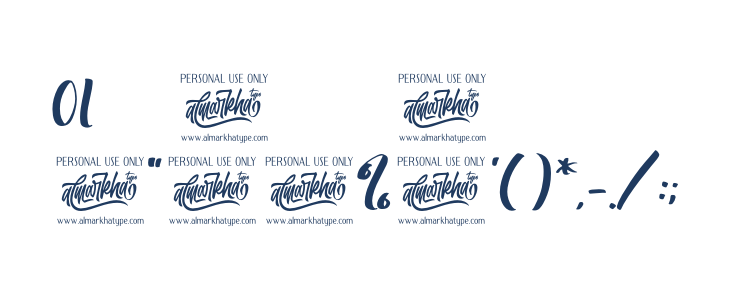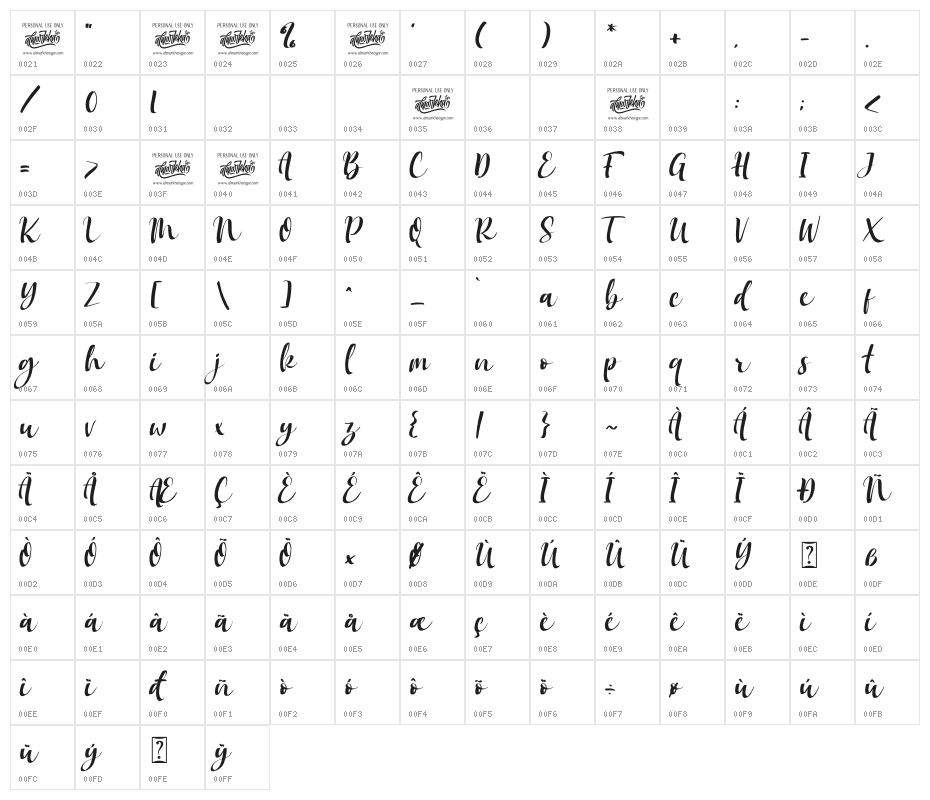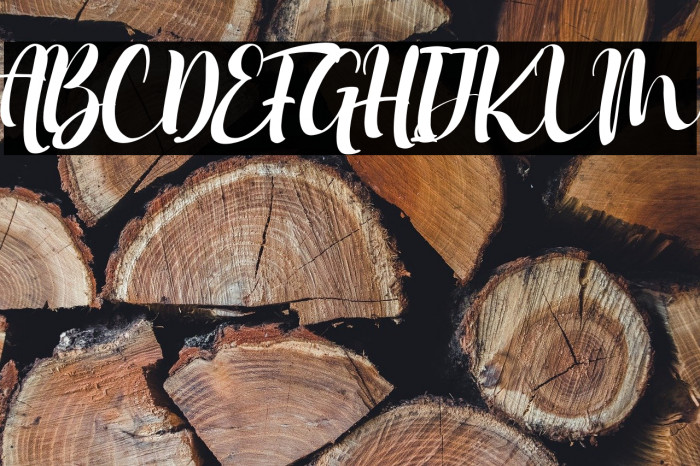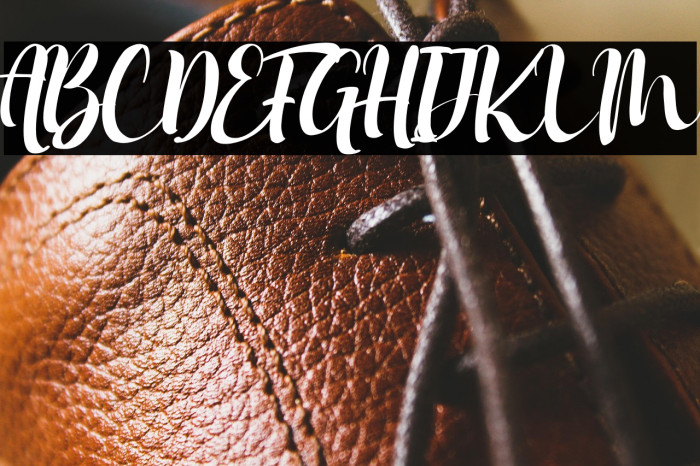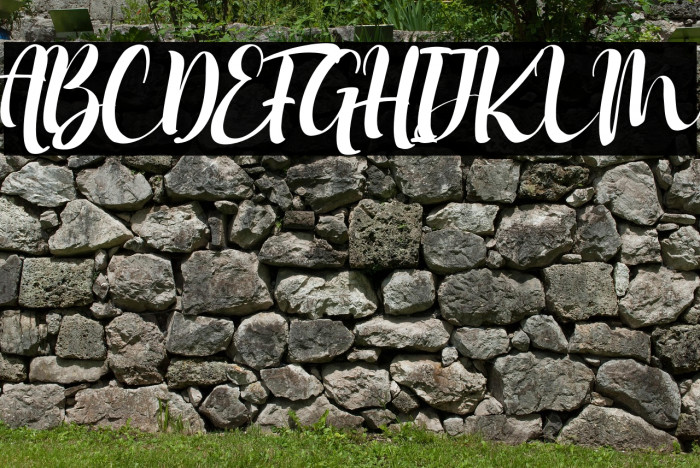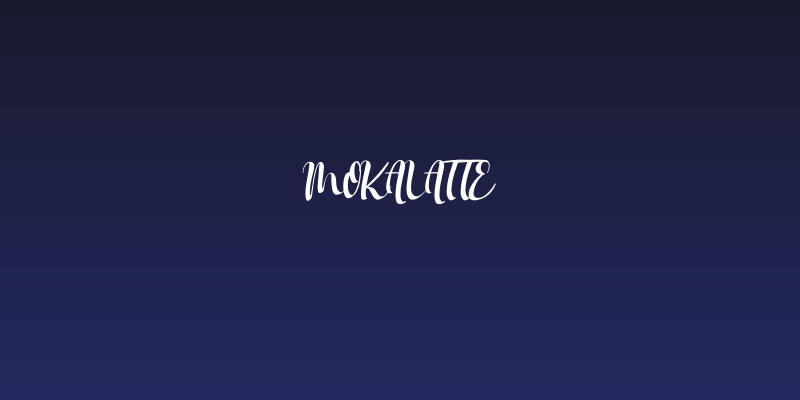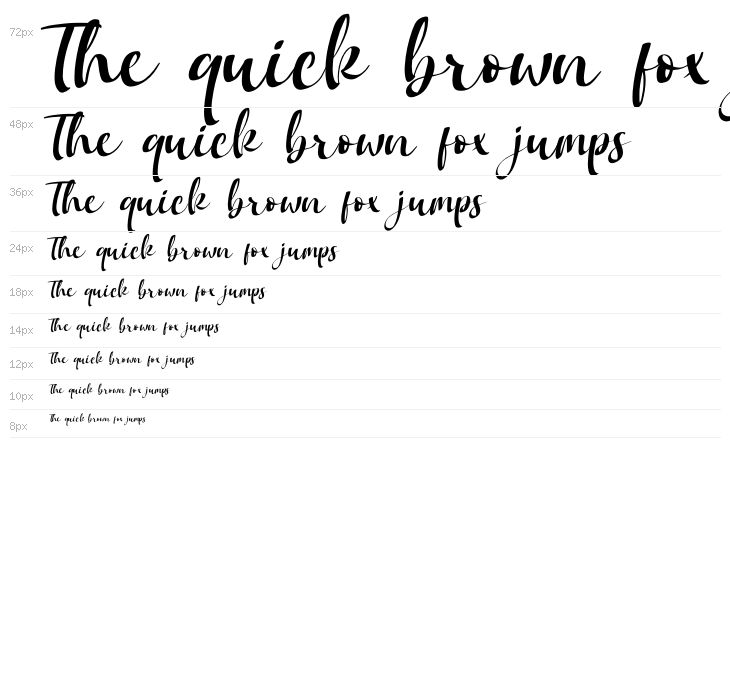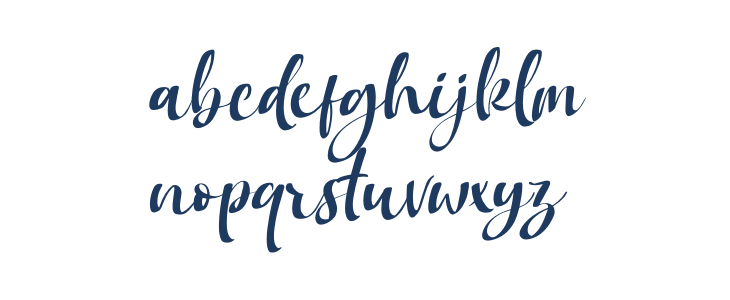
Mokalatte Font
This font features a dynamic and flowing script style, characterized by its elegant and fluid letterforms. The uppercase letters are bold and expressive, with sweeping curves and varying stroke widths that add a sense of movement and grace. The lowercase letters maintain a consistent style, with smooth connections and a slightly more restrained appearance. The numbers and special characters are designed to complement the overall aesthetic, maintaining the same fluidity and elegance. This font is ideal for creating a personal and artistic touch in any design project.